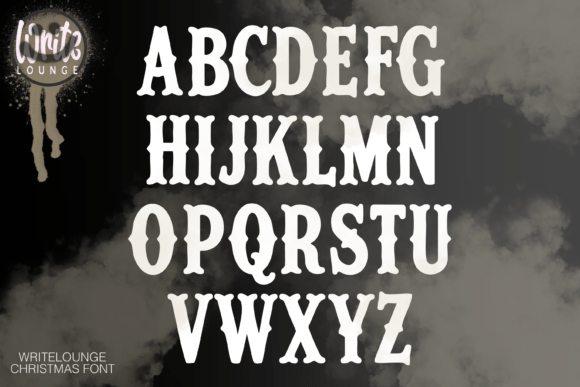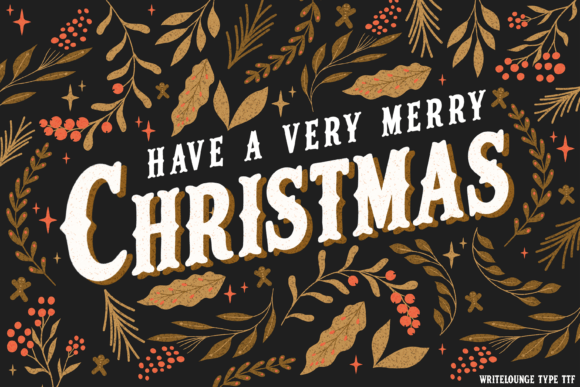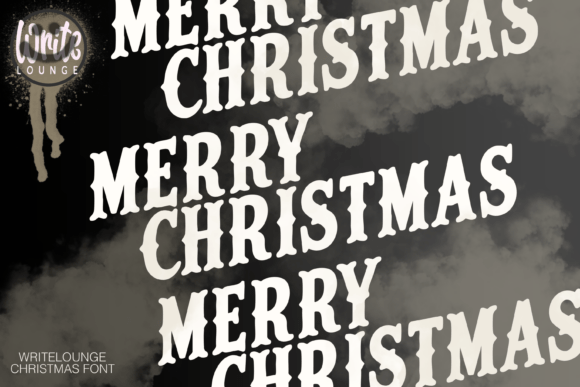
Introduction to Merry Letters Font
As a designer, there’s nothing quite like the feeling of discovering a new font that sparks a creative idea. For many, the holiday season is a time for nostalgia and warmth, and finding the perfect font to capture that essence can be a game-changer. That’s where the Merry Letters Font comes in – a festive vintage-style font that embodies the spirit of the season.
With its bold serifs, ornamental outlines, and classic Western feel, the Merry Letters Font is a design resource that’s sure to bring a touch of nostalgia to any project. Whether you’re working on a Christmas card, a winter decor design, or a festive branding project, this font is the perfect choice. And with its transparent background option, you can easily integrate it into any creative project.
Key Features of Merry Letters Font
- High-quality design resource with a playful and festive feel, perfect for creative projects.
- Designed with a modern aesthetic, making it suitable for a variety of design projects, from digital graphics to print materials.
Honest Review: Merry Letters Font
I recently stumbled upon the Merry Letters Font, and I must say it’s been a delightful discovery. This font is a fantastic addition to any designer’s toolkit, perfect for creative projects that require a touch of whimsy and playfulness.
- ✨ The Merry Letters Font is incredibly versatile, suitable for a wide range of applications, from digital designs to print materials.
- ✨ The font is highly customizable, allowing designers to easily manipulate the size, color, and style to fit their needs.
However, I do have to mention a few limitations:
- ⚠️ The font may not be suitable for designs that require a more serious or professional tone, as its playful nature may clash with the intended message.
- ⚠️ The font’s transparent background can sometimes make it difficult to use in designs with complex backgrounds.
Tips for Getting the Most Out of the Merry Letters Font
For the best results, use the Merry Letters Font in conjunction with a transparent background to create a beautiful, elegant look. You can also experiment with different font sizes and styles to add depth and interest to your design.
The Merry Letters Font is perfect for a variety of creative projects, including invitations, greeting cards, and gift tags. Its elegant design and high-quality features make it an excellent choice for professional design projects, as well as personal creative endeavors.